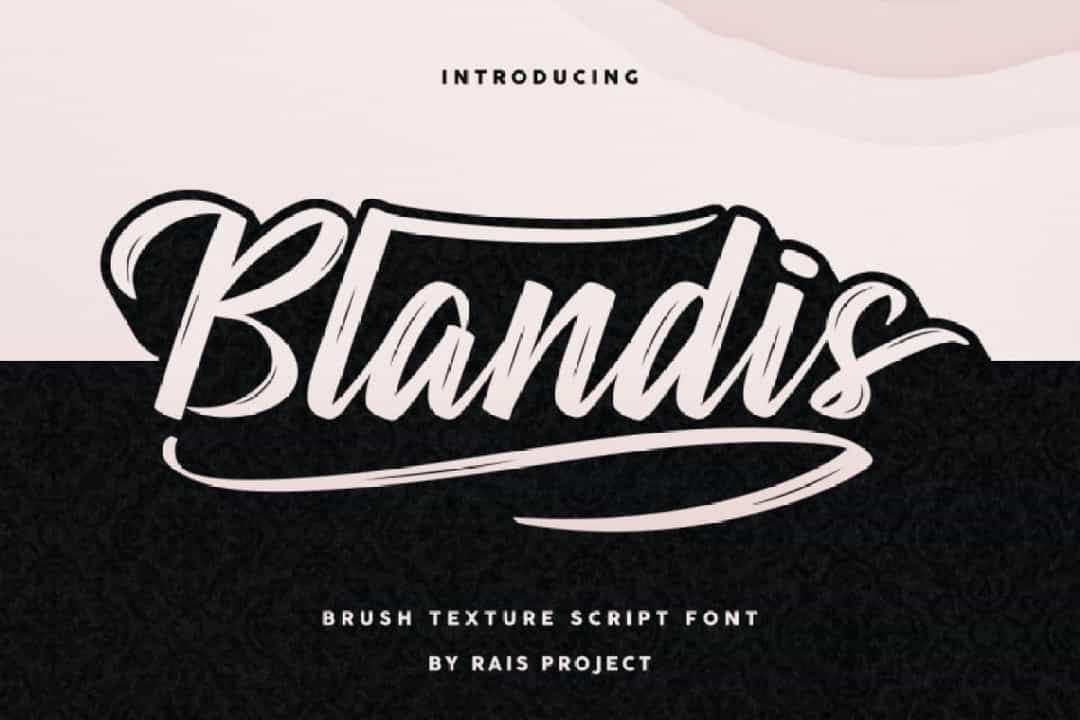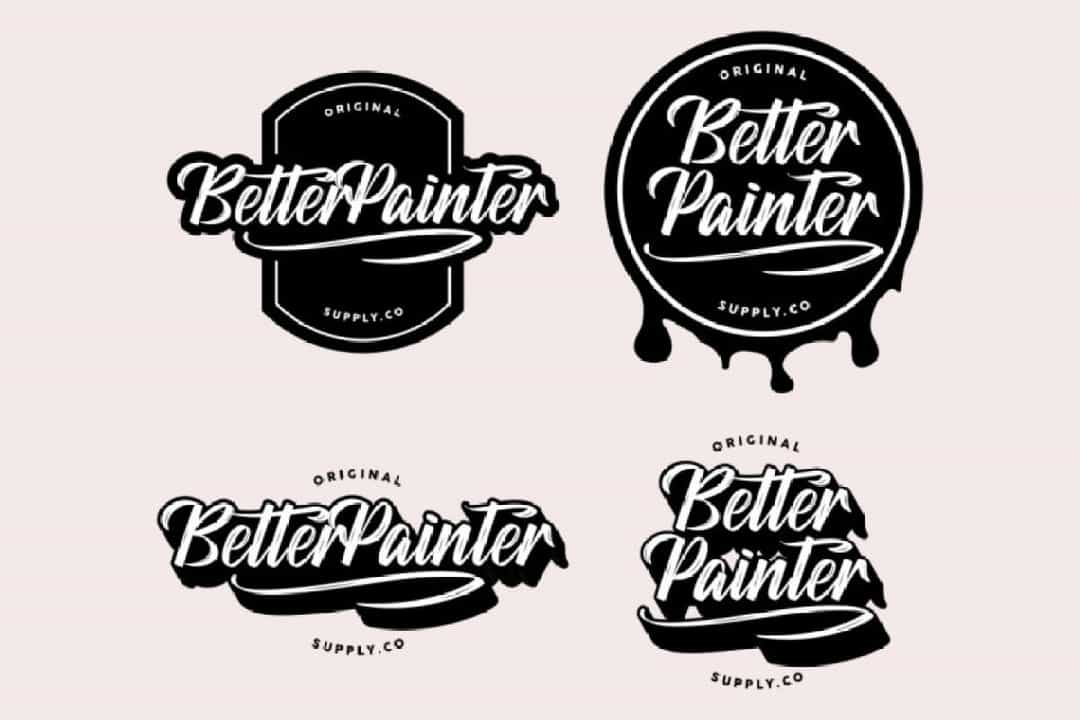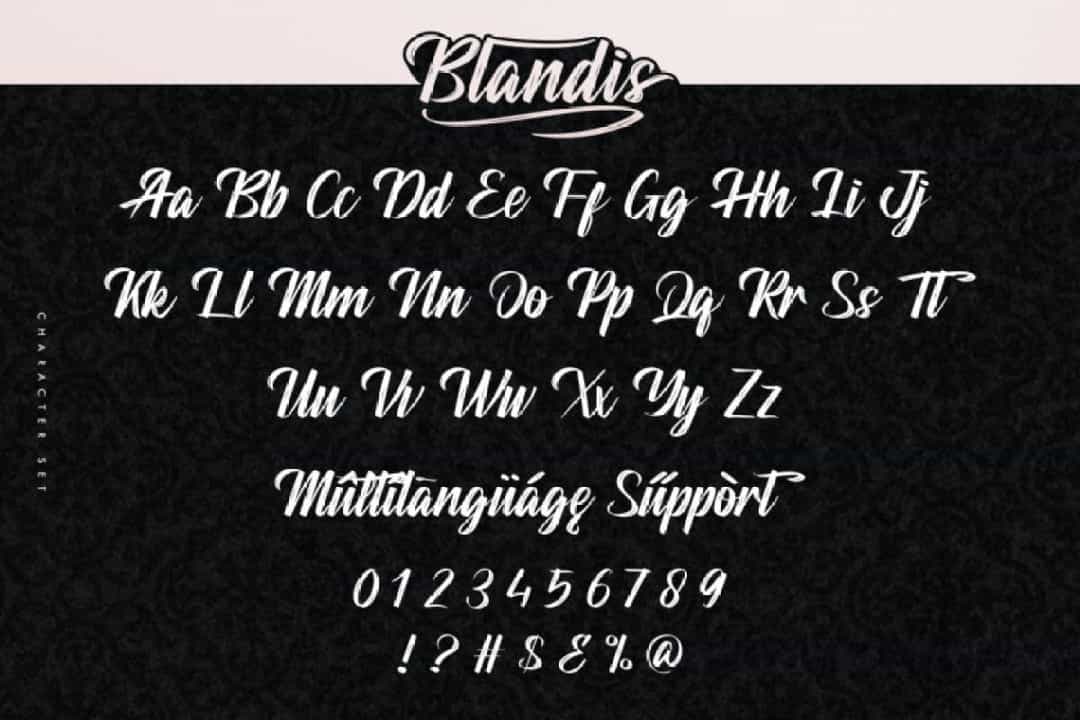
Blandis Brush Texture font was created by Rais Project and this is an old-fashioned brush font with texture that will be perfect for horror movie titles, game magazines, music and video productions, sports racing events and more. Custom-made to meet your needs; for headlines, promotions, and events, advertisements, magazines, signage, invitations, stationery, social network postings, labels and any other uses that need special designs.